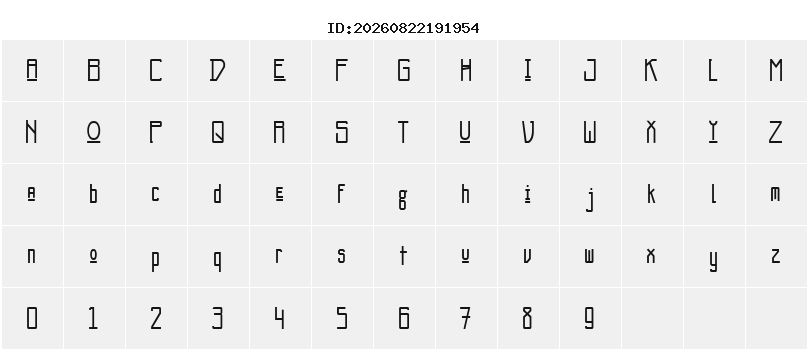
• Font Name: Scalactic J
• Copyright: Copyright 1995 by Julius Thyssen - Based on Scalactic Serenity, previously created type by JIGC (c)1983. Now with the famous baseline-score on all vowels.
Scalactic J.ttf is a modern, elegant sans-serif font designed for ultimate readability and visual harmony. Perfect for branding, headlines, web design, and print materials.